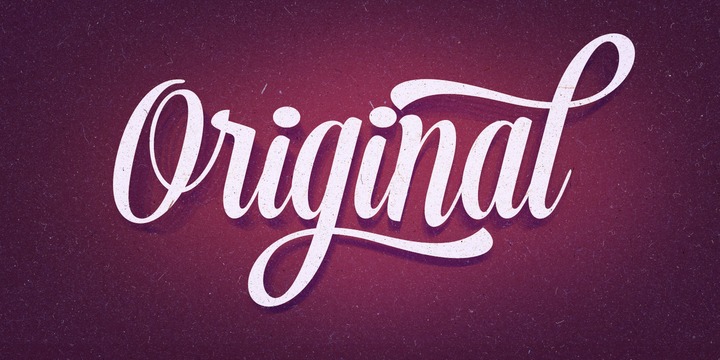
Voyage™
by Fenotype
The Voyage Font Family was designed by Emil Karl Bertell and published by Fenotype. Voyage contains 3 styles and family package options. More about this family
Voyage is a smooth and friendly vintage script family of two weights and ornament sets. Voyage is packed with alternate characters and OpenType features to allow you create customized headlines. To activate the alternates click on Swash, Contextual, Stylistic or Titling Alternates or Discretionary Ligatures in any OpenType savvy program or manually select the characters from Glyph Palette. Always keep on Standard Ligatures for the best outcome. Combine Voyage with Voyage Ornaments to complete your designs. For the best price purchase the Complete Voyage Family.
Designers: Emil Karl Bertell
Foundry: Fenotype
Emil Bertell has done it all. Having published his first font files at 16, he was considered to be an international free-font hero while still in his teens. He went on to attend design college, drop out, and become a well-known graphic designer and illustrator. Now one of the most successful type designers from the Nordic countries on MyFonts, the Finland-based designer said in his Creative Characters interview that he’s “had an obsession with visual culture from the beginning.” Before turning his attention to type design full-time, Emil had a very successful career as an award-winning illustrator. “Illustration became my main livelihood,” he said. “I drew painstaking pencil illustrations for magazines, advertising, stamps, etc. I often designed my own fonts for festivals and hand-drew the lettering posters; I also did a few pencil illustrations based on lettershapes, and that got out of hand, so I had to do a lot more of them.” In 2012 he finally made the switch and committed all of his time to type design. Emil first saw success with his Billboard typeface. “It became my first Rising Star on MyFonts and made me realize that I could actually make a living by designing fonts,” he said. “I realized that there’s actually a market out there that I could become a part of.” Throughout the rest of that year he began to see even more success. It began in January, when his font, Mishka, was featured in our Most Popular Fonts of 2011 list. He went on to find a way to bookend the year and was listed among the Most Popular Fonts of 2012 with his Mercury Script design. Since then, his foundry’s success has continued on with best sellers like Voyage and The Carpenter. Fans of the foundry have a lot to look forward to in the near future. Emil will continue to produce beautiful scripts (some coming soon to MyFonts!) and has plans to expand his business.